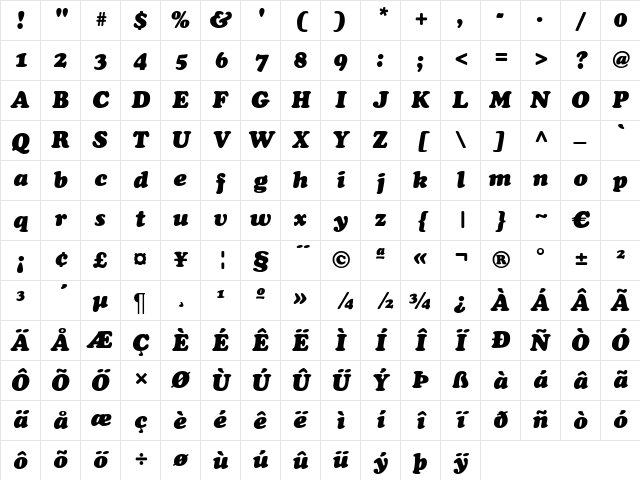
ColdBlackDB Italic Free Font
ColdBlackDB Italic
Complete ColdBlackDB Italic glyph index. Displaying only characters natively supported by ColdBlackDB Italic font.
Design Context for ColdBlackDB
ColdBlackDB is a composed and adaptable typeface that performs quietly and consistently across a wide range of design contexts. The slanted form adds forward momentum and visual energy.
Pro Tip: Use ColdBlackDB for emphasis, pull quotes, and subheadings where its slanted energy can add rhythm to the layout.